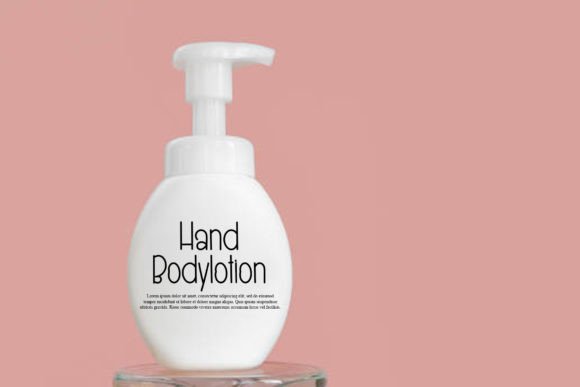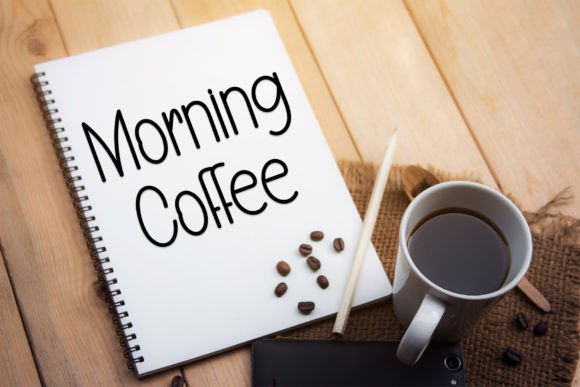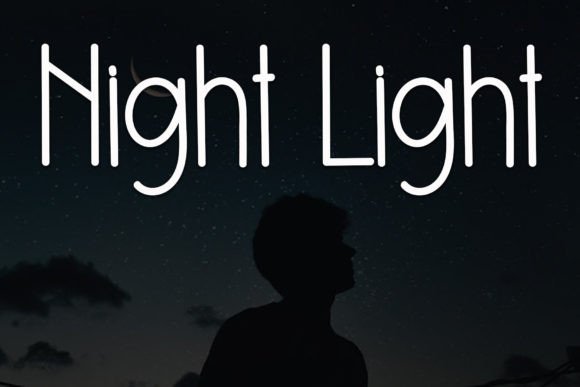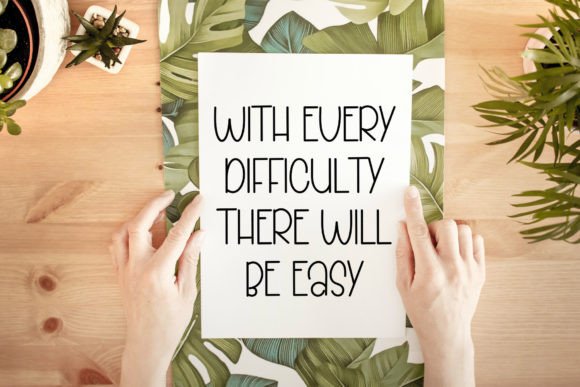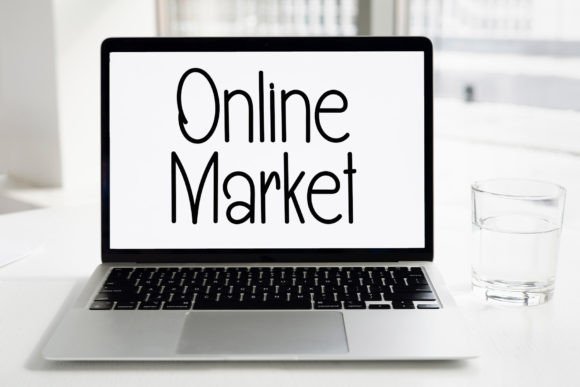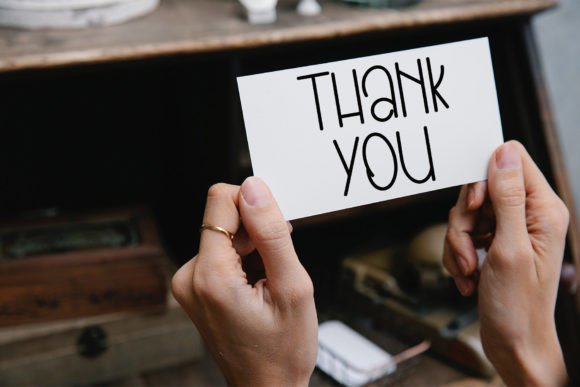
Get Ready to Soak Up the Festive Spirit with the Beach Holiday Font
It’s that time of the year again – the holiday season is upon us, and our minds are filled with visions of sugarplums, snowflakes, and sun-kissed beaches. As designers, we’re always on the lookout for the perfect font to capture the essence of this magical time. And, trust us, we’ve found it – the Beach Holiday Font is here to bring a dash of festive flair to your holiday projects!
This charming font is a designer’s dream come true, with its decorative elements and unique flair adding a touch of charm to your designs. Perfect for greeting cards, gift labels, and holiday-themed projects, the Beach Holiday Font brings a cheerful and nostalgic atmosphere to your words. With its PUA coding, accessing all the amazing glyphs and ligatures is a breeze, making it a valuable addition to any designer’s toolkit.
Beach Holiday Font Key Features
- Font Family: Beach Holiday Font is a unique, hand-drawn font designed to evoke a sense of relaxation and fun.
- Character Set: The font includes a comprehensive set of characters, including uppercase and lowercase letters, numbers, punctuation, and special characters.
- Unique Characteristics: Features a playful, hand-drawn style with irregular shapes and lines, perfect for creating eye-catching headings and titles.
Beach Holiday Font Review
Overall, I’d say the Beach Holiday Font is a great choice for summer-themed projects or anything that needs a fun, carefree vibe. Here’s what I like about it: ✨
- Fun and playful feel: The Beach Holiday Font is perfect for capturing the essence of a carefree summer day.
- Wide range of styles: The font comes in various styles, from casual to bold, giving users plenty of options to choose from.
- Easy to read: Despite its playful nature, the font is still easy to read, making it suitable for a wide range of applications.
However, there are a few limitations to consider: ⚠️
- Limited versatility: While the font is great for summer-themed projects, it may not be the best choice for more formal or professional projects.
- Lack of subtlety: The font can be a bit too playful for some projects, so users may need to use it in moderation.
- No bold italic style: While the font comes in various styles, there is no bold italic option, which may be a limitation for some users.
Overall, I think the Beach Holiday Font is a great addition to any designer’s toolkit. It’s perfect for projects that need a fun, carefree vibe, but may not be the best choice for more formal or professional projects.
Tips for Getting the Most Out of Beach Holiday Font
Here are some tips for getting the most out of Beach Holiday Font:
- Use Beach Holiday Font for projects that require a fun and playful vibe, such as beach-themed invitations or summer-themed social media graphics.
- Combine Beach Holiday Font with other playful fonts to create a unique and eye-catching look.
- Experiment with different font sizes and styles to create a visually appealing design.
Here are some common use cases for Beach Holiday Font:
- Beach-themed invitations and party decorations.
The Beach Holiday Font is a variable font, which means it can be customized to fit your specific design needs. You can adjust the font’s weight, width, and other parameters to create unique styles and variations.